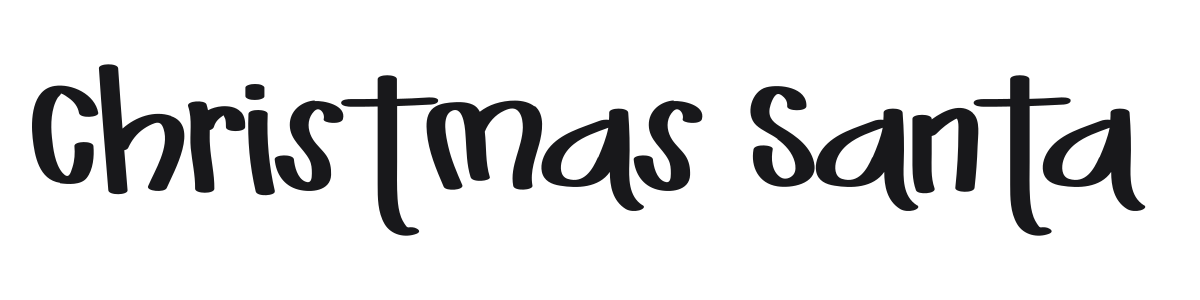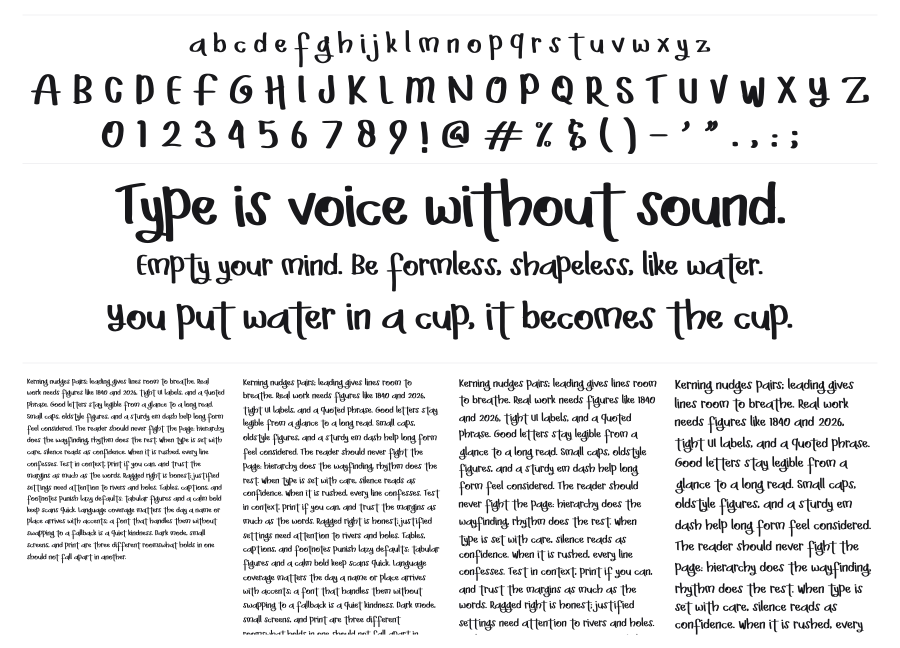
Christmas Santa
Christmas SantaLaila is a bold, chunky casual script with a warm hand-lettered personality. The heavy rounded strokes and gently bouncing baseline give it the feel of something written with a thick brush in a hurry, in the best way. It reads friendly and festive at headline sizes, making it a natural choice for holiday packaging, greeting cards, and seasonal branding.